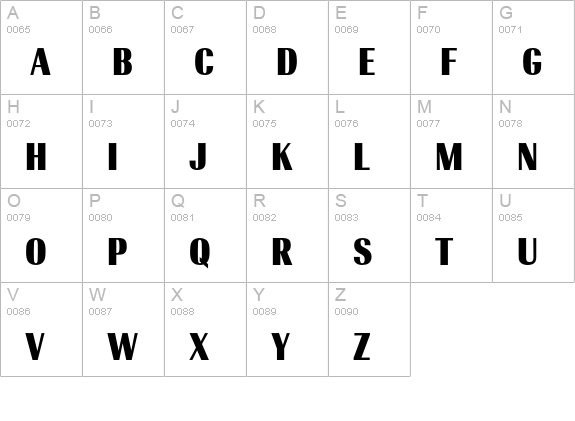
RadiantEFDisplay-CondNo2 Font Details
RadiantEFDisplay-CondNo2 font is a stunning typeface that combines elegance with a modern touch. Its sleek and sophisticated design makes it perfect for a variety of uses, from branding and advertising to editorial design and website headers. This font features a condensed style, which adds a unique and eye-catching element to any project. Its bold and clean lines give it a strong presence, while its slightly rounded edges add a touch of softness and approachability. RadiantEFDisplay-CondNo2 font is not only visually appealing but also highly legible. Each letter has been meticulously crafted to ensure clarity and readability, even at smaller sizes. This makes it an excellent choice for both print and digital media. One of the best features of RadiantEFDisplay-CondNo2 font is that it is freely available to download at FontsMarket.com. This means that you can easily access and use this exceptional typeface in your projects without any cost. Whether you are a professional designer or a hobbyist, this font is a valuable addition to your collection. So, if you are looking for a versatile and visually striking font that will make your designs stand out, look no further than RadiantEFDisplay-CondNo2 font. Download it for free at FontsMarket.com and elevate your projects to new heights of style and sophistication.